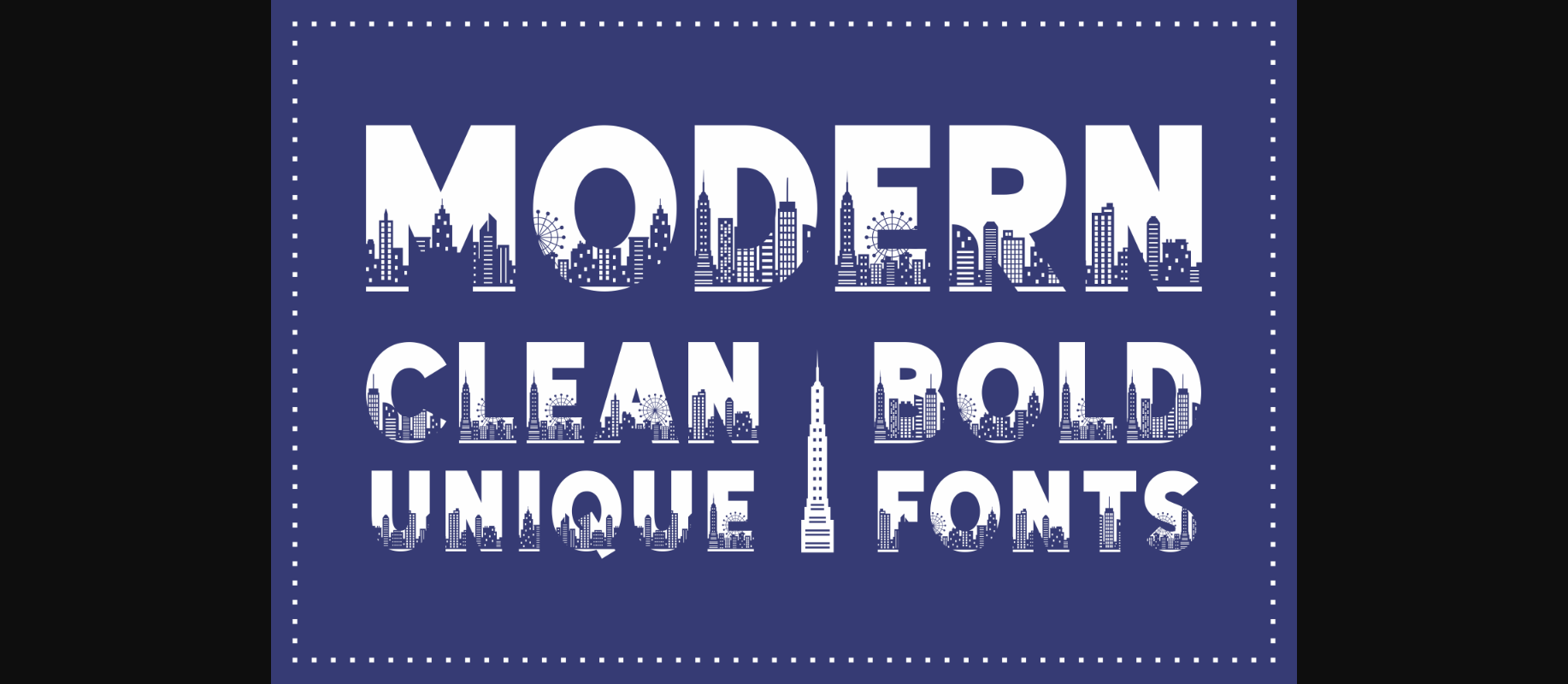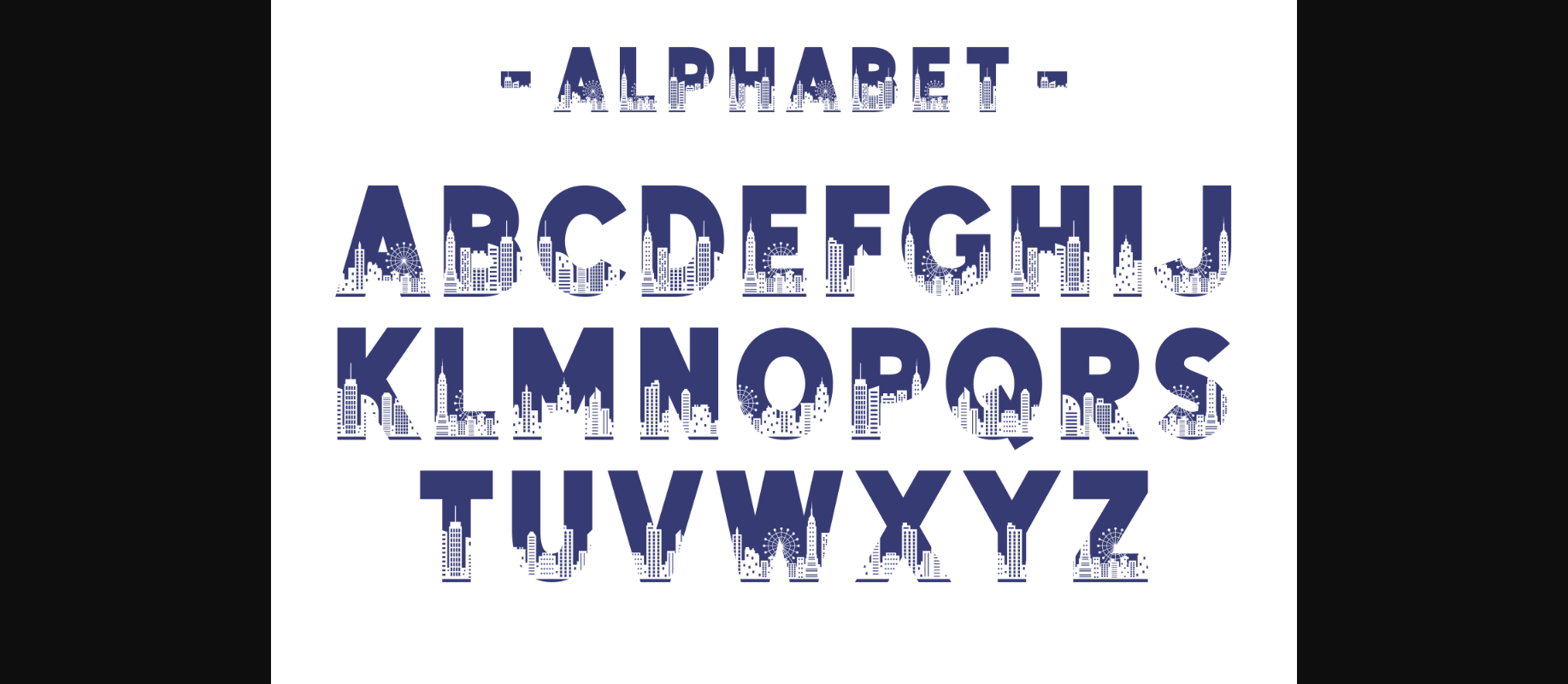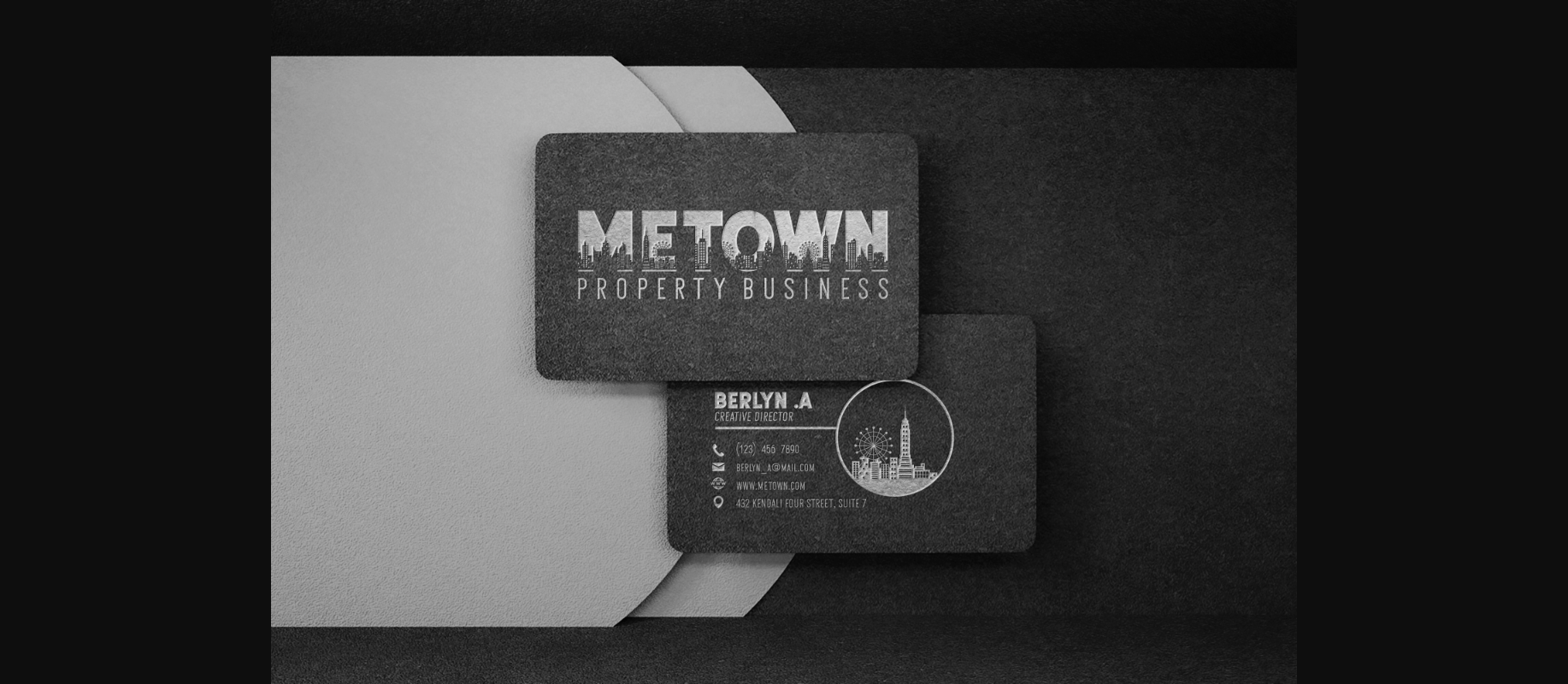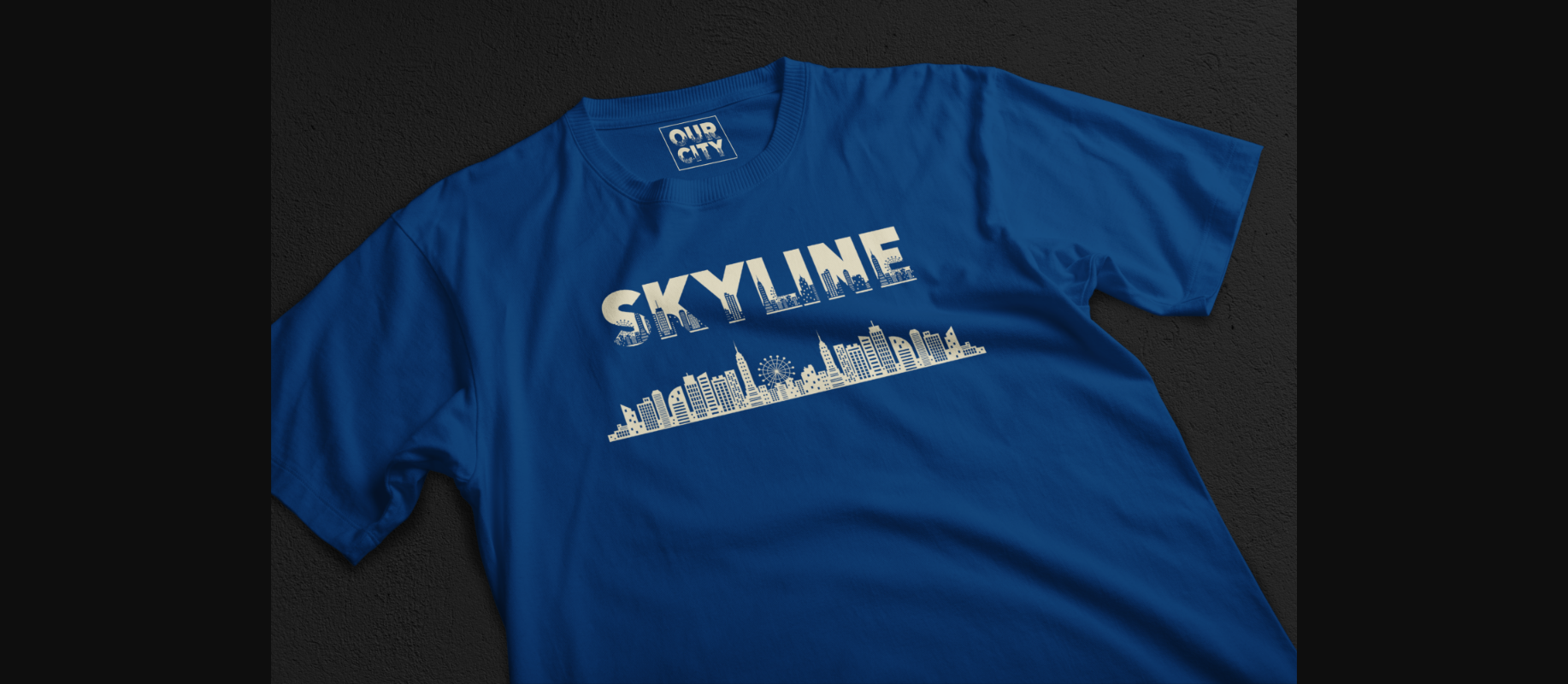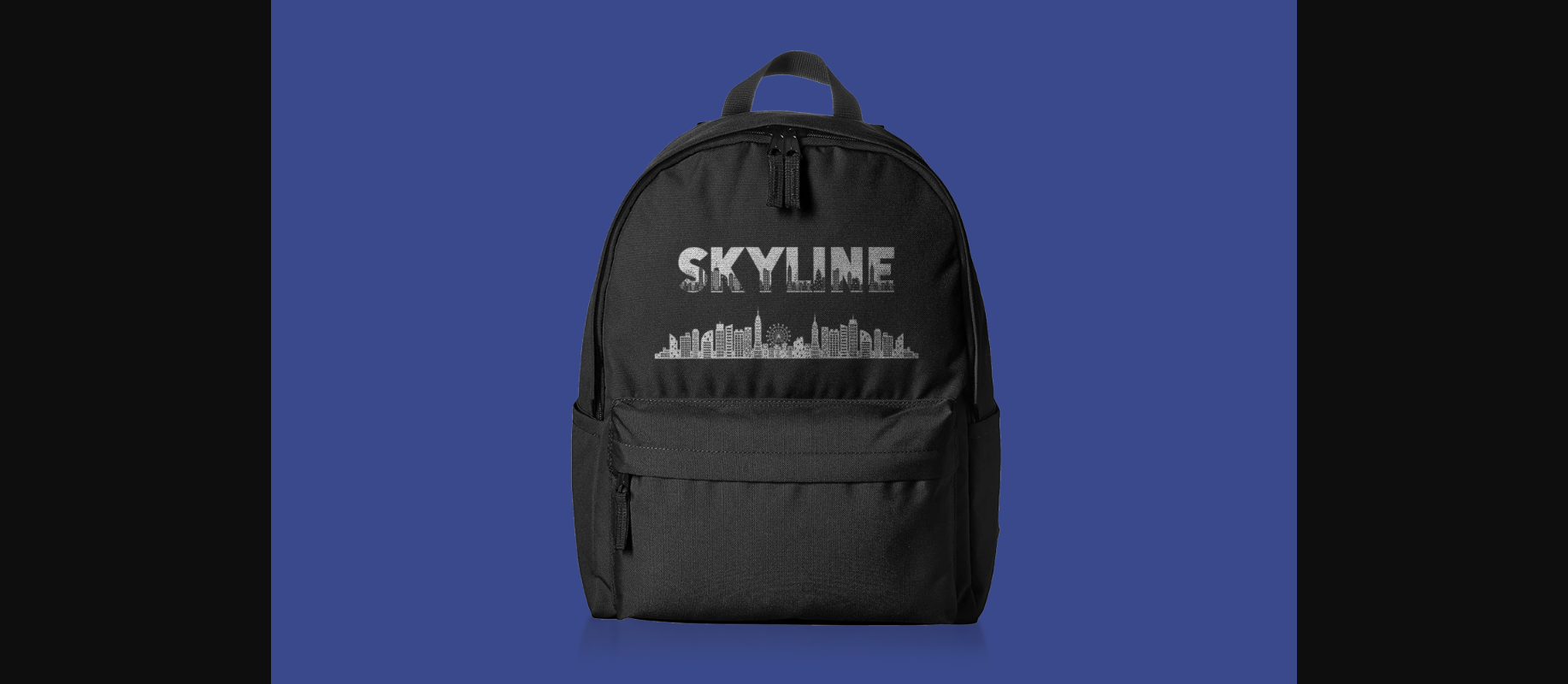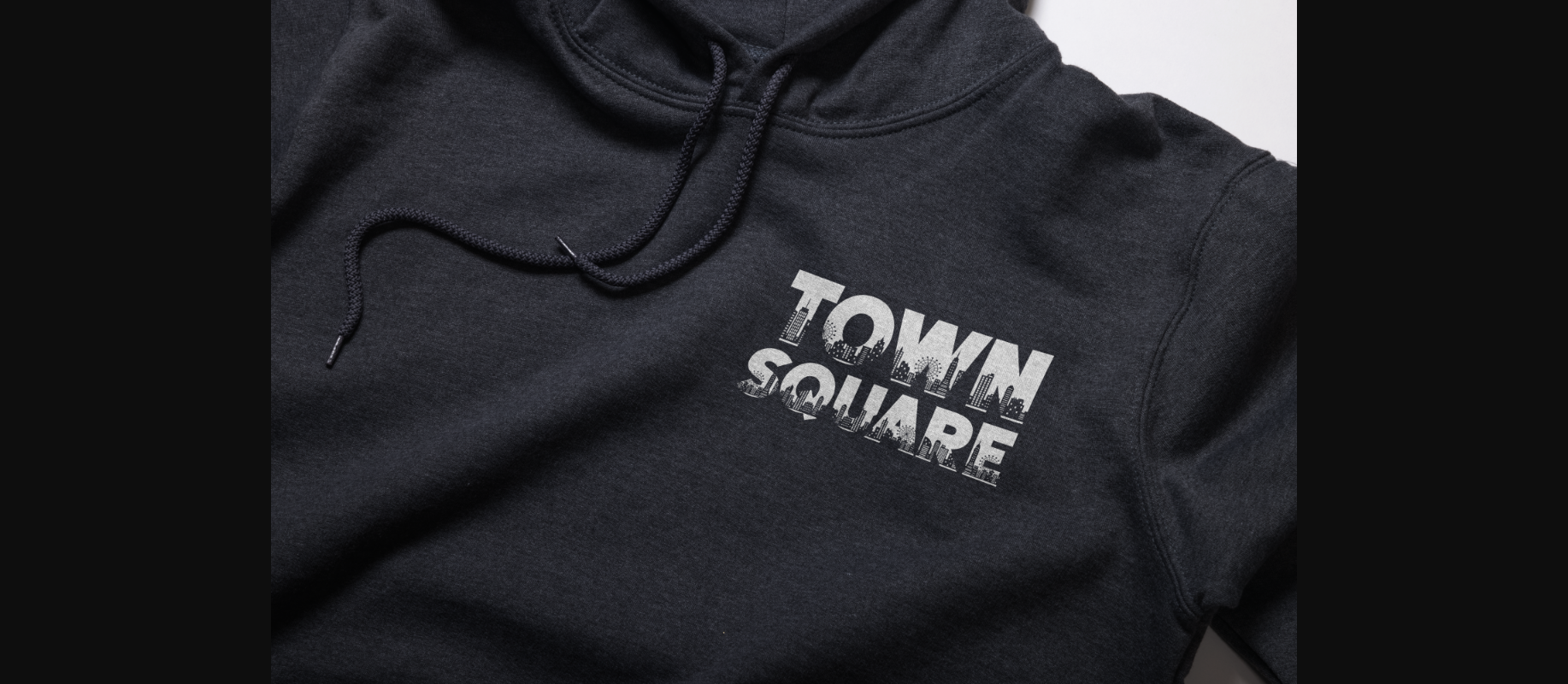
Modern is a cool, incredibly unique and glamorous decorative font. This font is suitable for designs such as t-shirts, sportswear, logos, advertisements, clothing, and more.